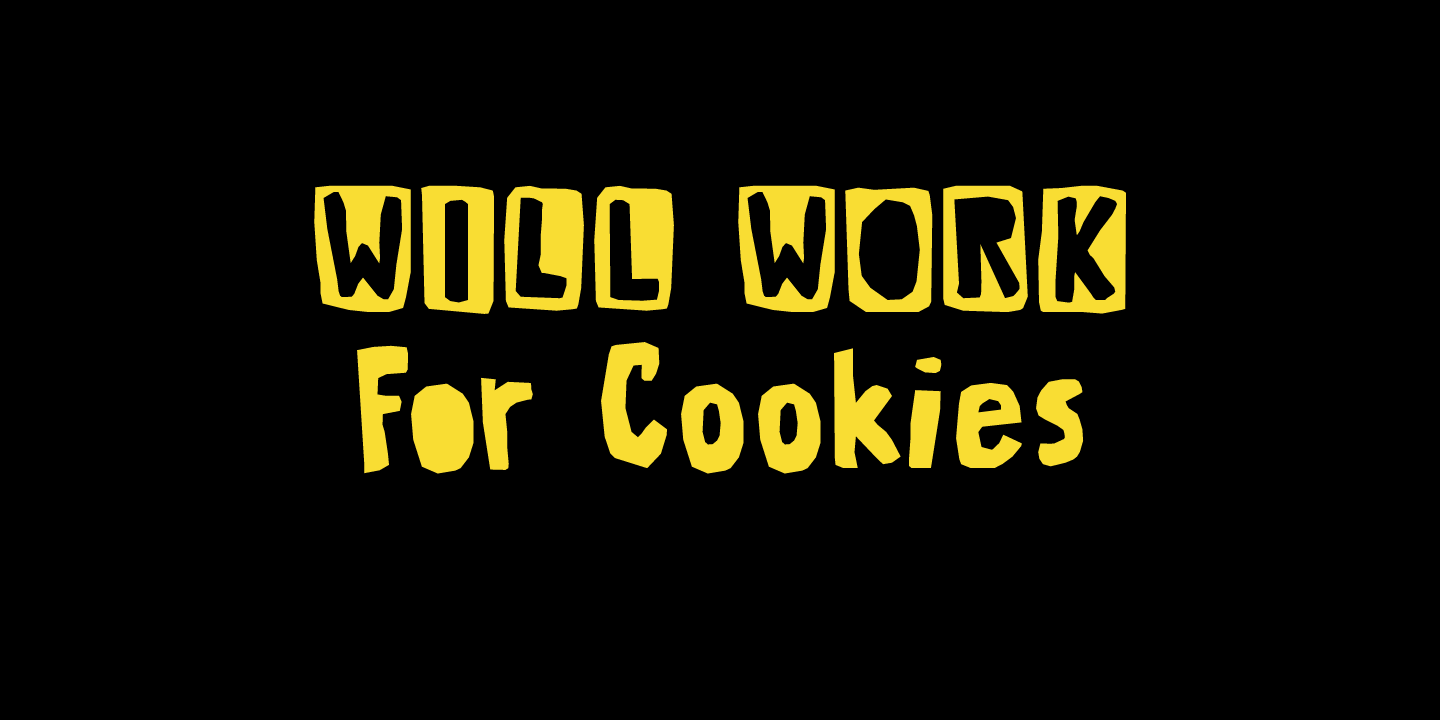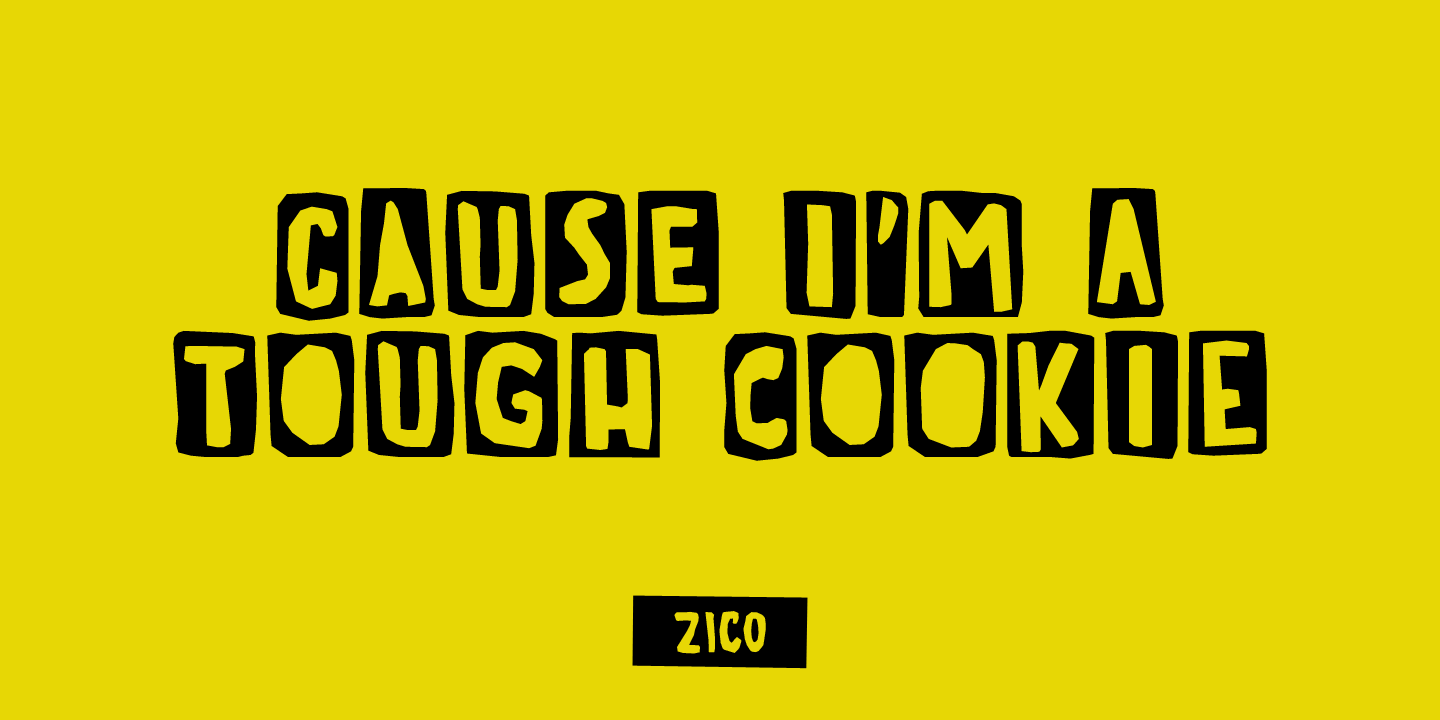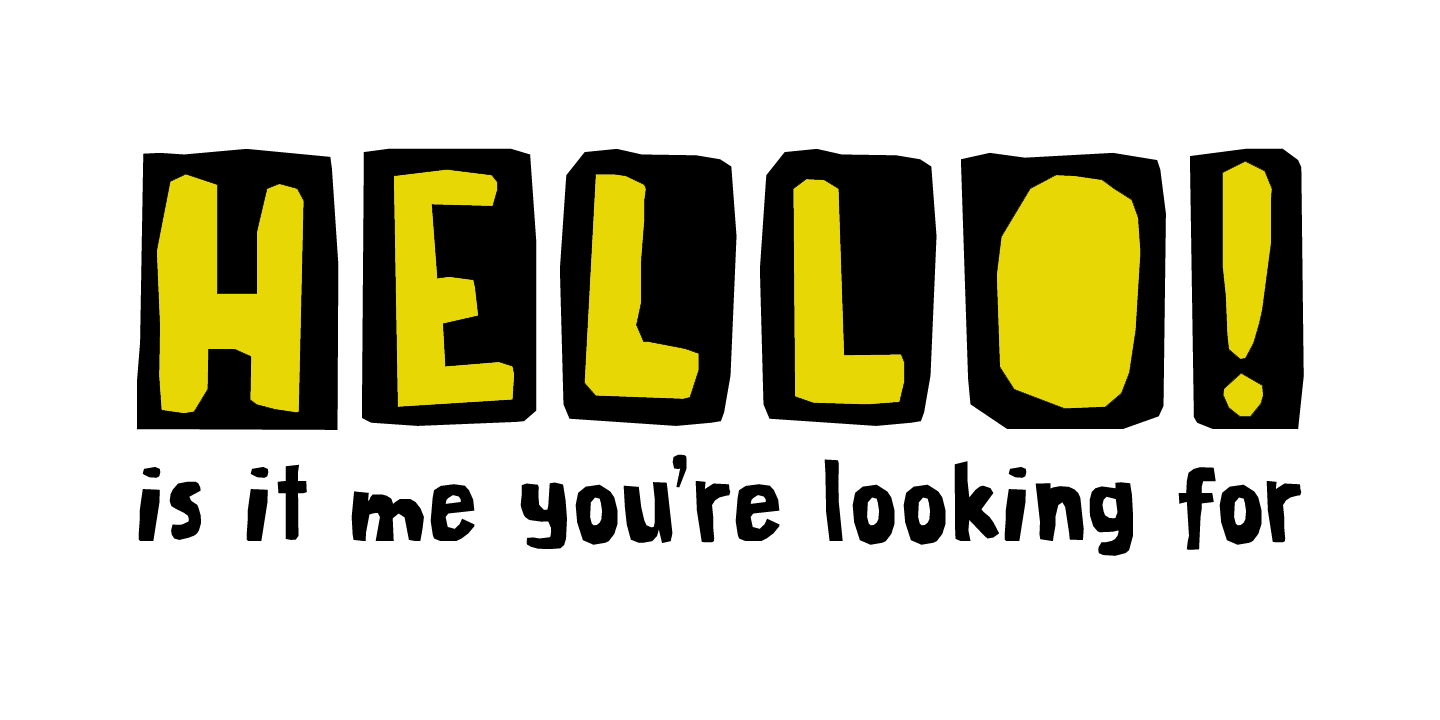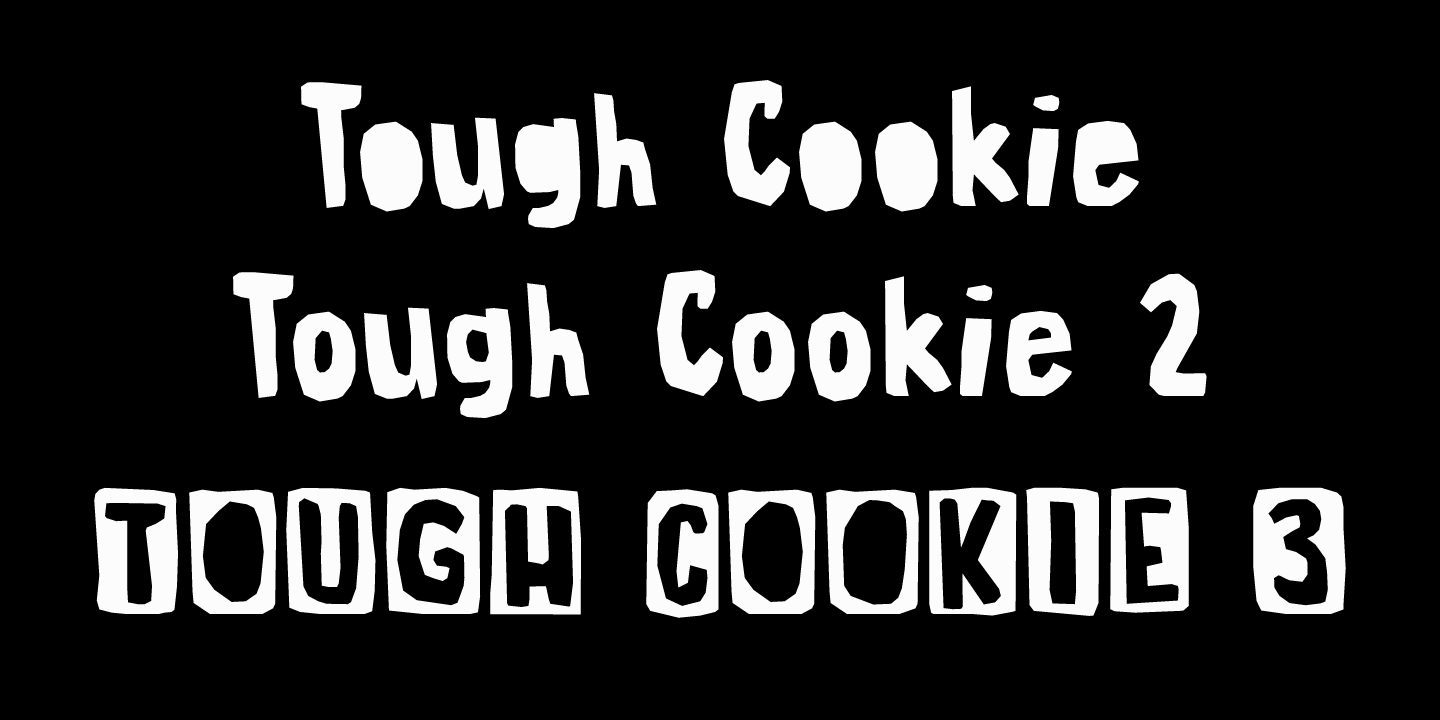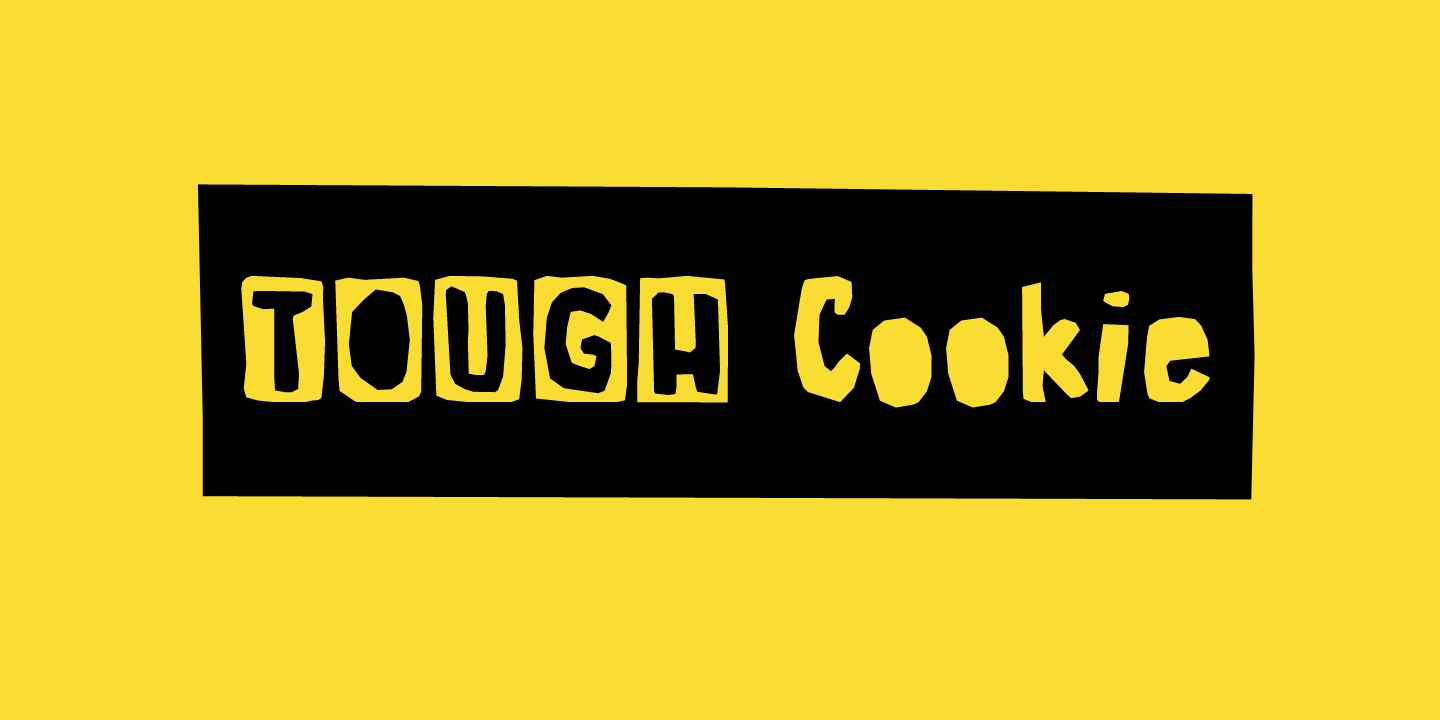
Tough Cookie
Tough Cookie is a handmade font that looks like it has been cut out. It comes in three varieties that work together really well. Use it for your book covers and product packaging, or (if you\’re a tough cookie) for your christmas cards?